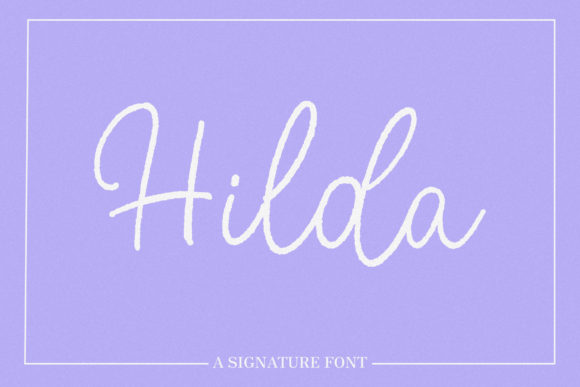
Introducing Hilda Font - Where Elegance Meets Charm
In a world of digital monotony, where fonts often blend into the background, Hilda Font emerges as a breath of fresh air, an exquisite script font that captivates with its timeless beauty and modern flair. Crafted with meticulous attention to detail by the talented kamilla.writes.letters, Hilda embodies the essence of sophistication and grace.
Hilda's allure lies in its ability to evoke emotions, to transform words into art. Its delicate strokes and elegant curves dance across the page, creating a visual symphony that commands attention. Whether you're designing wedding invitations, heartfelt thank you cards, inspiring quotes, or eye-catching greeting cards, Hilda adds a touch of magic that elevates your designs beyond the ordinary.
With Hilda Font, you can create logos that exude professionalism and class, business cards that make a lasting impression, and any other design project that demands a handwritten touch. Its versatility knows no bounds, making it the perfect choice for designers, artists, and creative entrepreneurs who seek to leave an indelible mark on their audience.
Hilda Font isn't just a font; it's an experience. It's a journey into a world where words come alive, where emotions find their voice, and where creativity knows no limits. So, embrace the allure of Hilda, let your designs blossom with elegance, and embark on a creative adventure that will leave you spellbound.